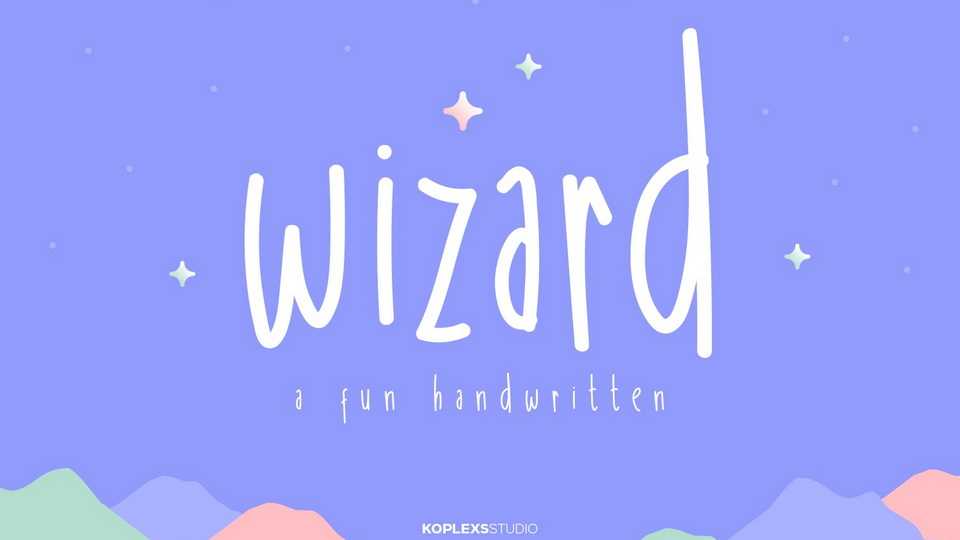
Download Wizard font, a fun handwritten typeface that is made to bring out the happy, light-hearted character. Wizard is perfect for any projects that need handwriting taste.
Designer: Koplexs Studio